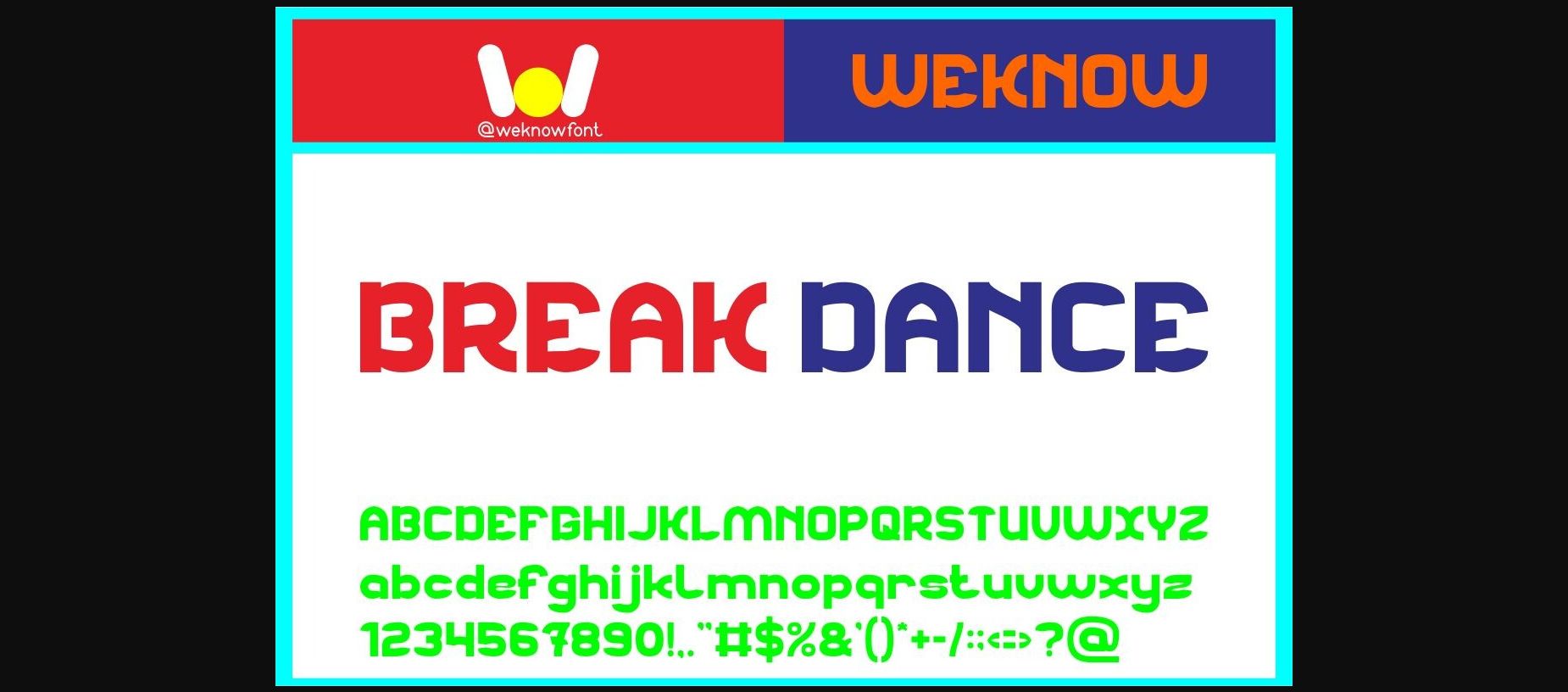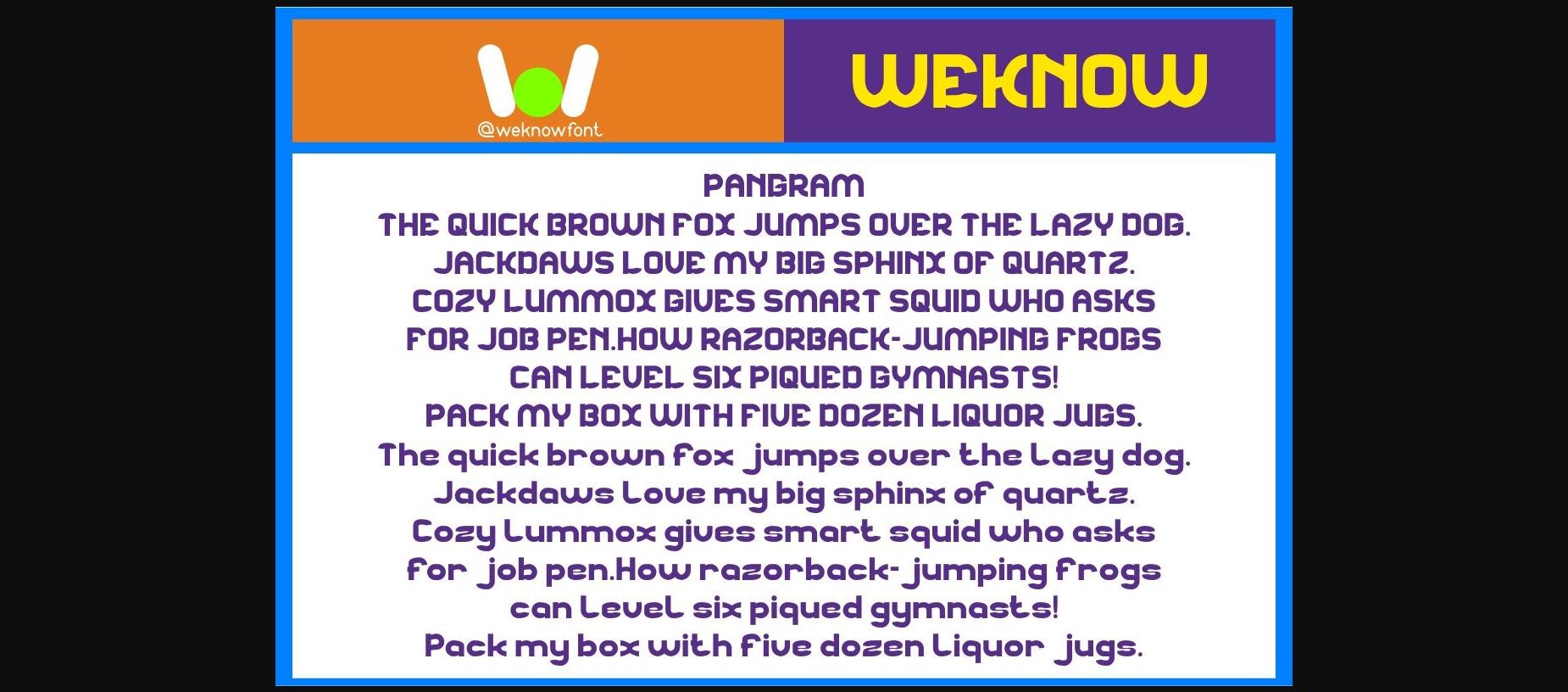
About Break Dance Font
Introducing Break Dance, the sans-serif typeface setting a new standard in versatile fonts. This crisp, clean font evokes an aura of elegance balanced with a contemporary edge, ideal for making your logo or logotype come alive. Stake your claim in the corporate world or etch your brand’s identity in the minds of your audience with the Break Dance font. Its timeless look makes it a match for the apparel industry, transforming ordinary into extraordinary with its distinctive touch. Whether it’s a headline-grabbing poster, a soulful track, an exciting game, or a thought-provoking movie, Break Dance adapts effortlessly. Adding that zing to your magazines, books, comics, and cartoons, this font seamlessly integrates with a host of creative design projects. Moreover, its digital-friendly form factors make it the go-to font for YouTube videos, Instagram posts, or website content. So, get ready to dance to your own beat with Break Dance!